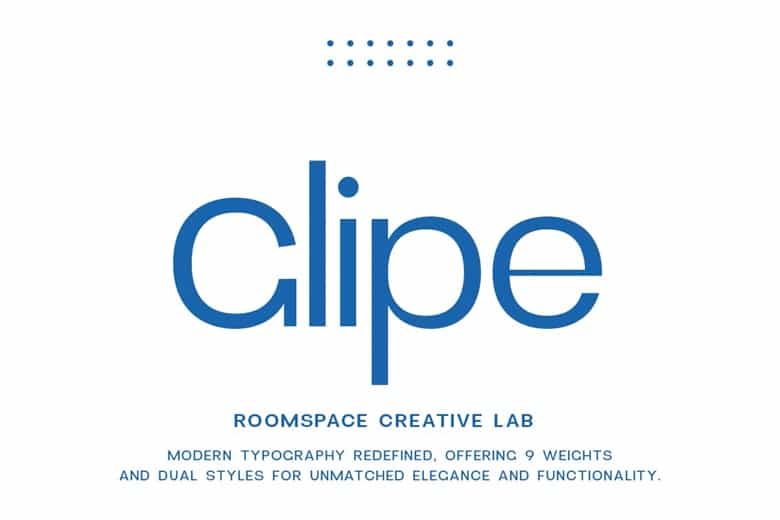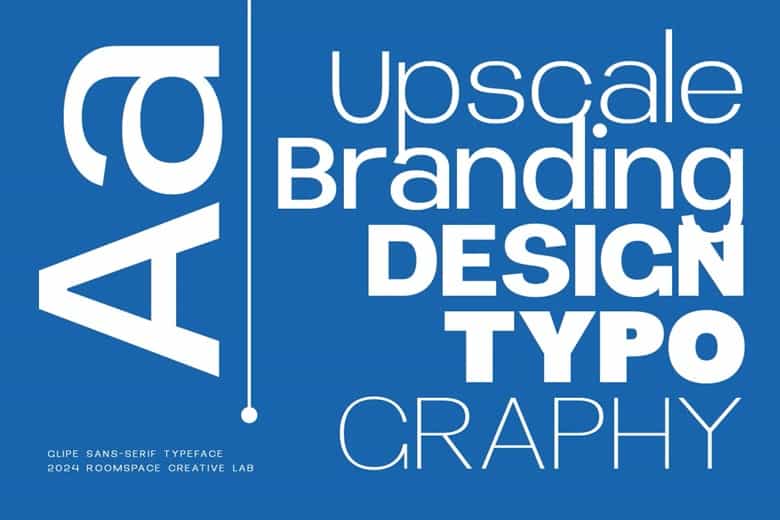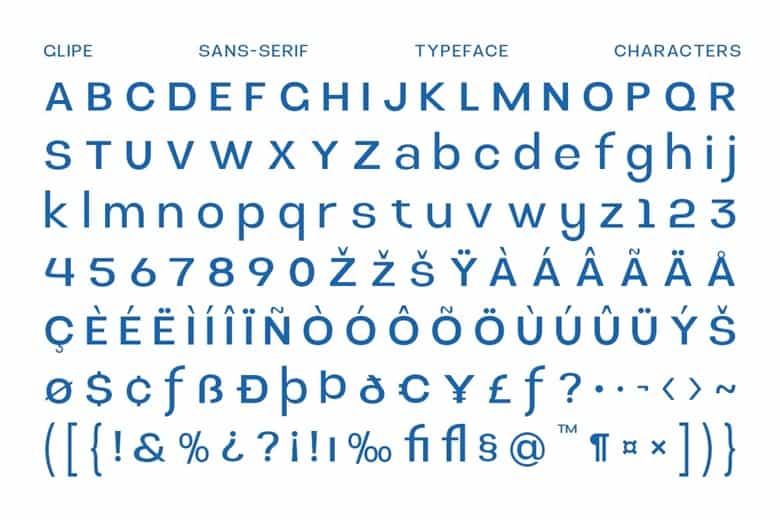
A modern sans-serif font called Glipe, made for maximum versatility. Glipe has 18 styles, including Thin, Ultralight, Regular, Bold, Heavy, Extra Black, Black and extra variants called Oblique for each weight. Thanks to its wide variation, Glipe is great for both simple, delicate text and attention-grabbing title text.